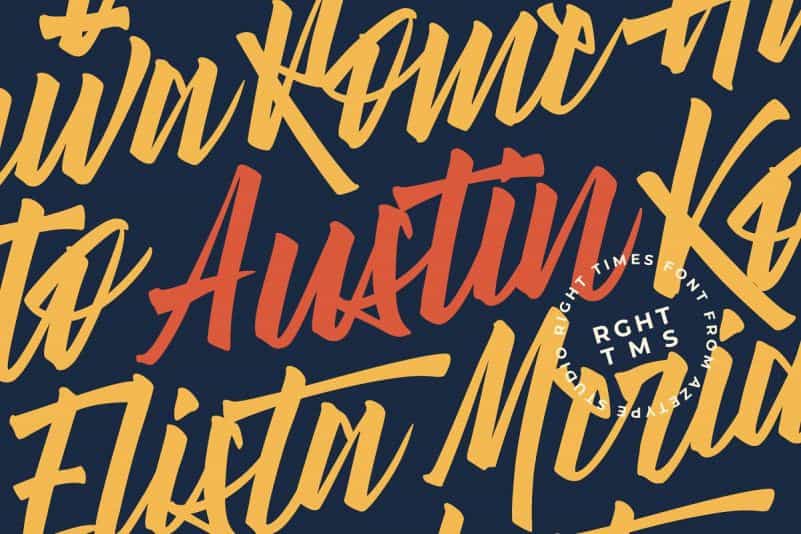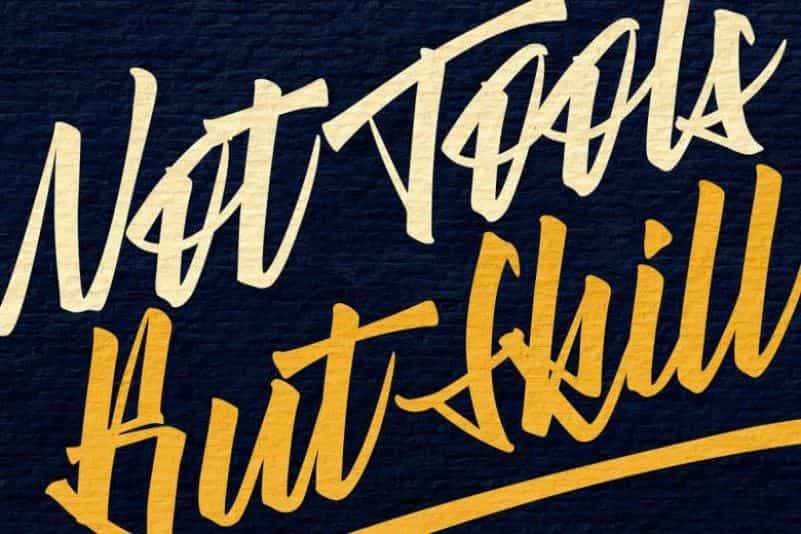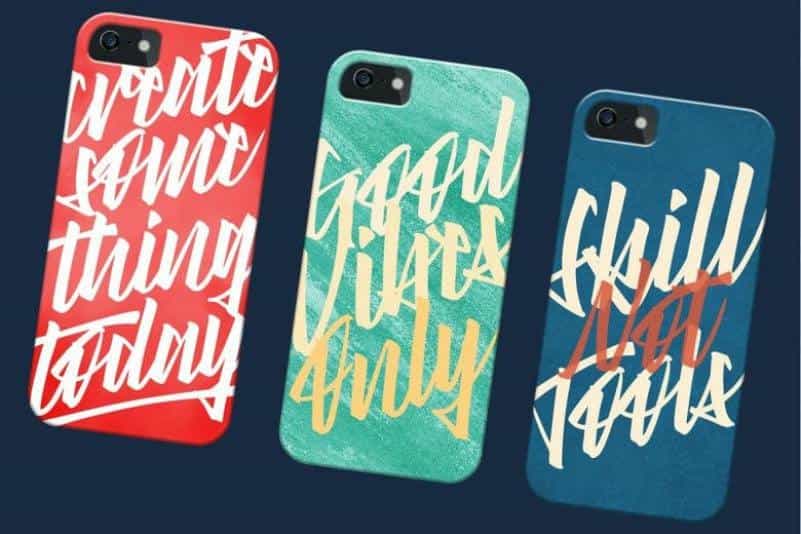
The new brush font “Right Times Font” is here. Right Times Brush Font!A Distinct Brush Script. This font is made with the perfect combination of all characters. It seems to be unique and you can use it for all your projects. This font is applicable at any time and for any project.